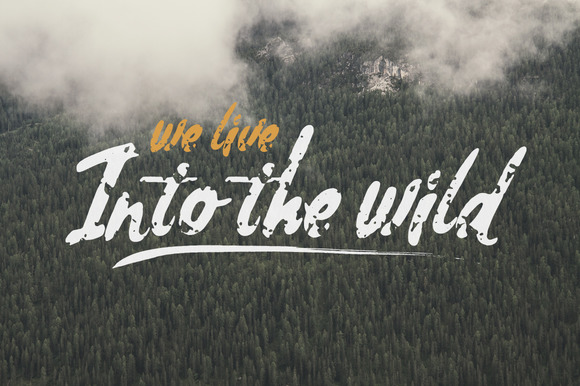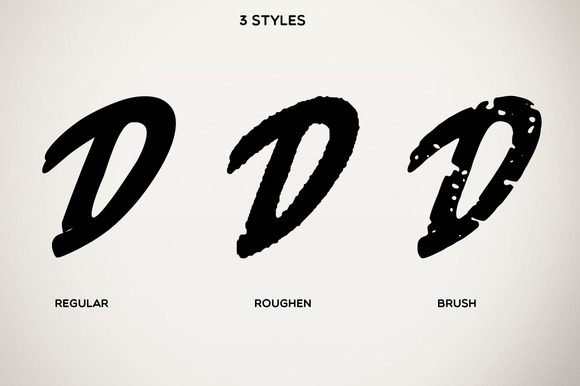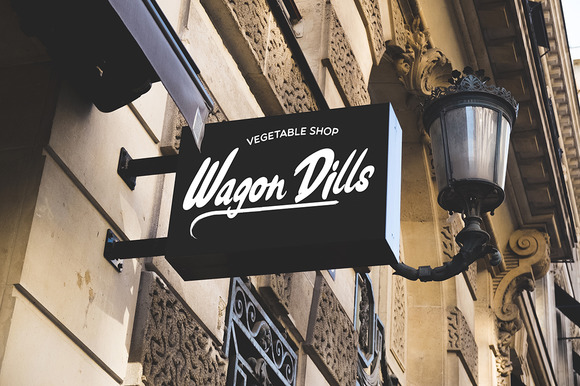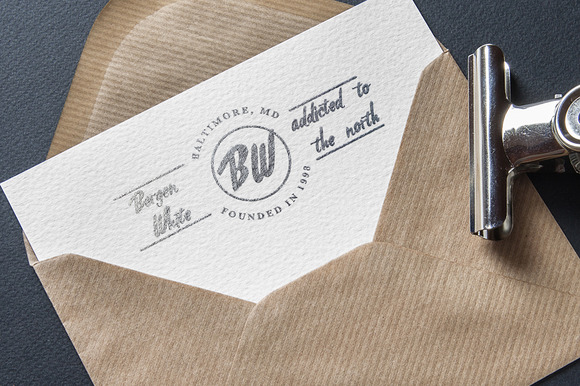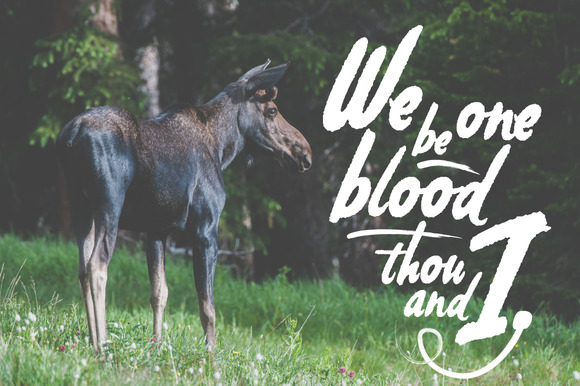
Introduction to Rochesten Font
Have you ever found yourself lost in the woods, surrounded by the sounds of chirping birds and rustling leaves? That’s where the magic of the natural world inspired the creation of the Rochesten Font. This handcrafted font is a true masterpiece, bringing the essence of animals, forests, and the great outdoors to your design projects.
As a designer, you’re constantly on the lookout for unique and high-quality design resources to elevate your creative project. The Rochesten Font is a valuable addition to your toolkit, offering a range of possibilities for headings, logos, and more. With its transparent background and versatile style, this font is perfect for designing invitations, t-shirt graphics, and even book covers.
Key Features of Rochesten Font
- High-quality design resource ideal for creative projects, offering a unique and sophisticated aesthetic.
- Features a transparent background, allowing for seamless integration with any design element and providing maximum flexibility.
- Comes in a range of sizes, from 18pt to 72pt, making it suitable for various design applications, from headings to body text.
- Designed with a high resolution of 300 DPI, ensuring crisp and clear text even at large sizes.
- Unique characteristics include a modern and elegant feel, making it perfect for branding, advertising, and editorial design projects.
- Easy to customize and edit, thanks to its high-quality vector format, allowing designers to make adjustments as needed.
Honest Review: Rochesten Font
As a designer, I’m always on the lookout for high-quality design resources to enhance my creative projects. Recently, I had the chance to work with the Rochesten Font, and I’m excited to share my honest review with you.
- The Rochesten Font has a beautiful, modern aesthetic that’s perfect for a wide range of creative projects.
- The font is highly customizable, allowing you to adjust the size, color, and style to suit your design needs.
- One of my favorite features is the transparent background, which makes it easy to layer and combine with other design elements.
- The font may not be suitable for very small text sizes, as it can become difficult to read.
- While the font is highly customizable, it may not be compatible with all design software or platforms.
Tips for Getting the Most Out of Rochesten Font
Experiment with different font sizes, colors, and styles to create unique designs. Use the transparent background feature to create seamless designs. Also, consider pairing the Rochesten Font with other high-quality fonts to create visually appealing designs.
The Rochesten Font is ideal for various creative projects, including graphic design, branding, and digital art. Its high-quality design and transparent background feature make it perfect for creating visually appealing designs with a seamless background.
Alternatives to Rochesten Font
Great Vibes is a high-quality, cursive font ideal for creative projects requiring a touch of elegance. It features a transparent background, making it suitable for use on any background image or color. Great Vibes is a great alternative to Rochesten Font for designers who want a more refined and sophisticated look.
Lato is a clean and modern sans-serif font that offers a high level of readability. It is a great choice for designers working on a variety of projects, from web design to print materials. Lato is a versatile font that compares well to Rochesten Font in terms of its clarity and simplicity, but it offers a more modern and sleek aesthetic.